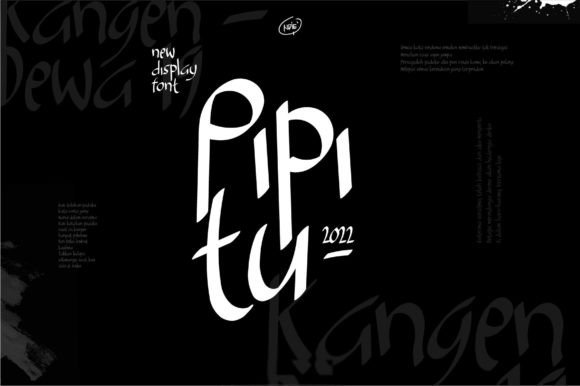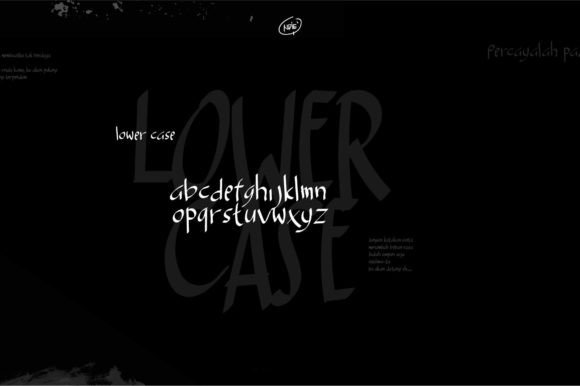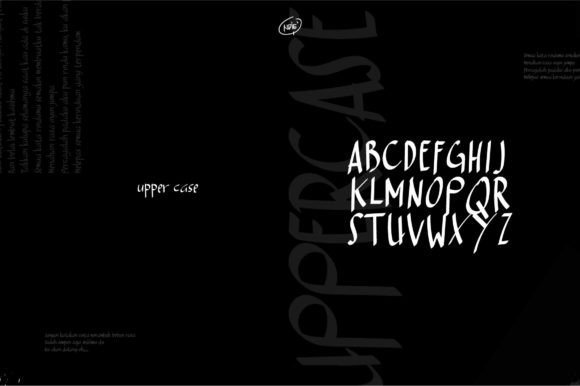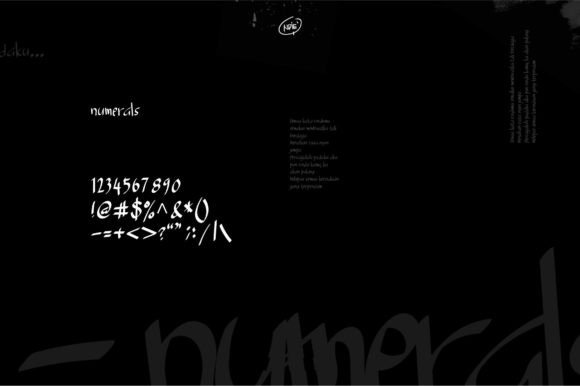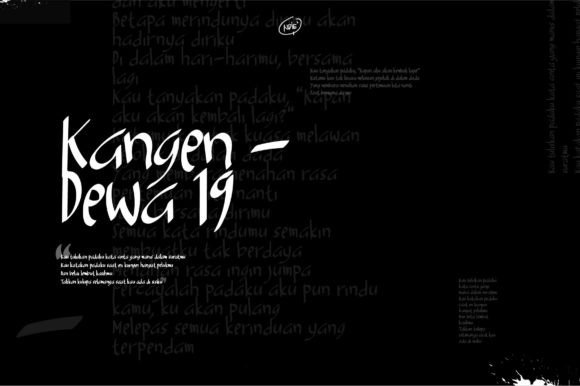
Pipitu Font
About Pipitu Font
“Pipitu” is a cool and modern handwritten font that is masterfully designed to become a true favorite in your creative toolkit. With its contemporary style, this font has the potential to elevate each of your creative ideas to the highest level.
The cool and modern aesthetic of “Pipitu” makes it a versatile choice for a wide range of design projects. Whether you’re working on branding, posters, digital graphics, or any other creative endeavor, this font adds a touch of freshness and sophistication.
The handwritten quality of “Pipitu” gives it a personal and authentic touch, making it suitable for projects where a sense of individuality and creativity is desired. Its modern design ensures that it aligns well with current design trends, making it relevant for a variety of applications.
Imagine “Pipitu” enhancing a brand’s identity, where its cool and modern script adds a contemporary edge to the logo. Picture it on posters or digital graphics, bringing a fresh and dynamic feel to your visual compositions. Envision this font on product packaging, adding a touch of style and uniqueness.
In the realm of design, “Pipitu” is more than just a font; it’s a design element that has the potential to make your creative ideas stand out. Its cool and modern handwritten charm invites you to explore new possibilities and create designs that are not only stylish but also memorable.
Whether you’re a graphic designer seeking a font that resonates with contemporary aesthetics or an individual embarking on a creative project, “Pipitu” invites you to make it a true favorite. Let it be the key element that takes your creative ideas to new heights, adding a touch of modern flair to your designs.